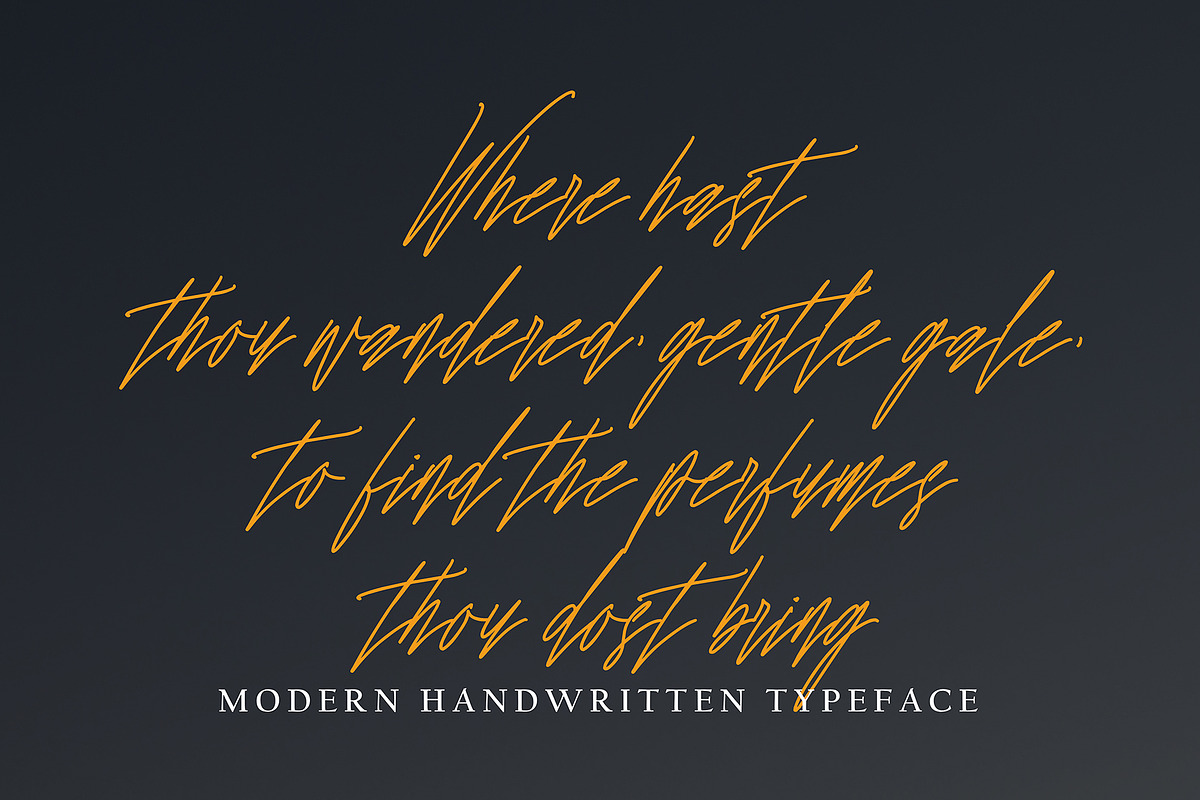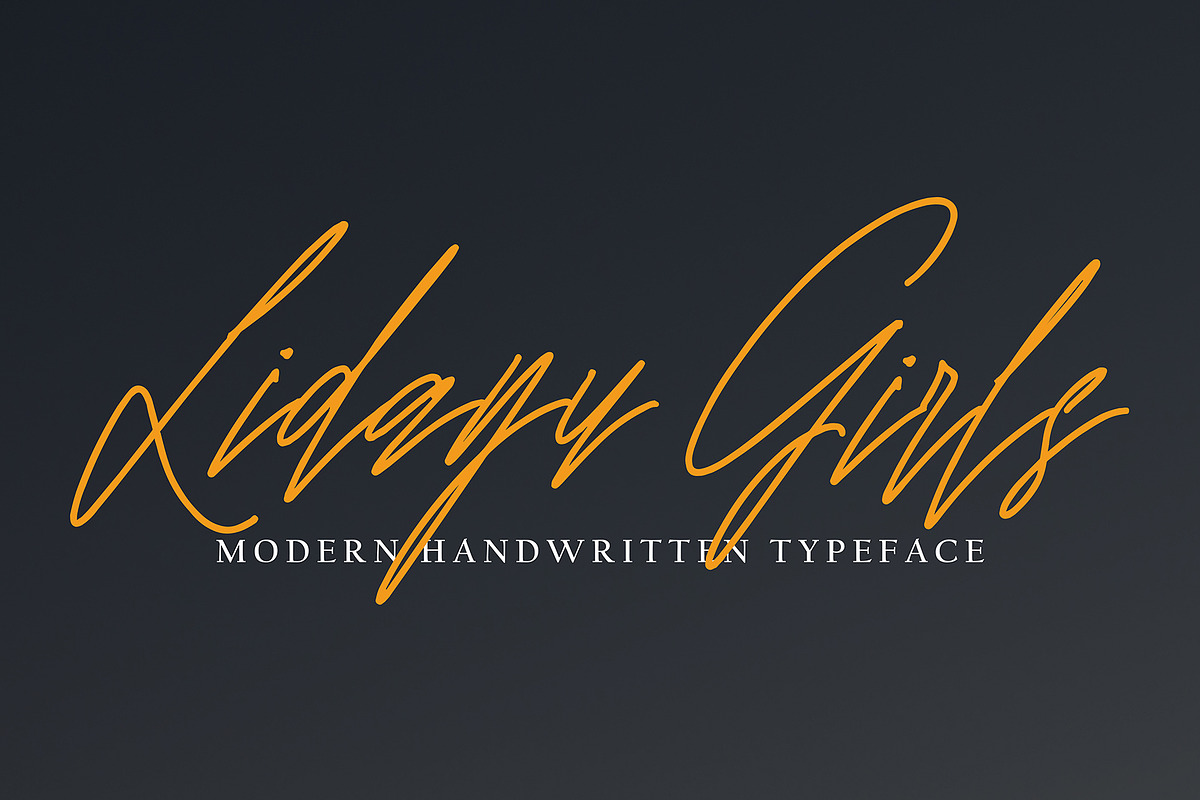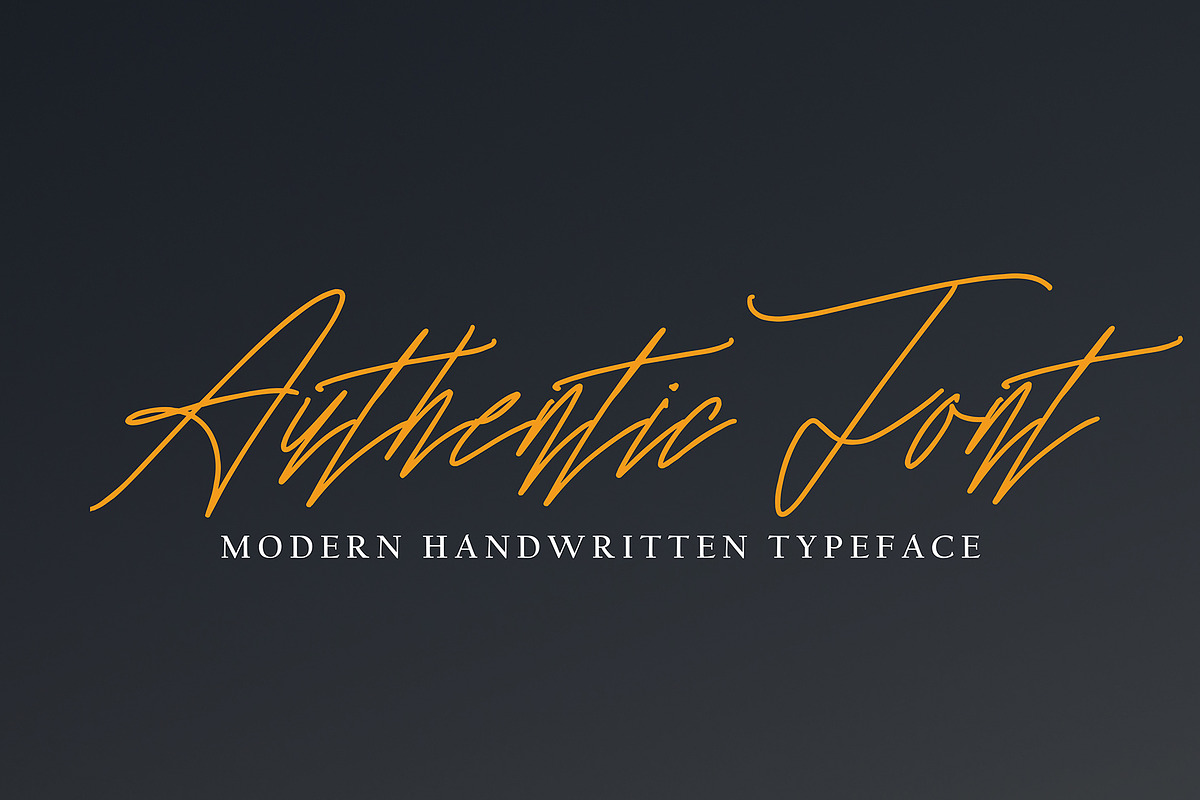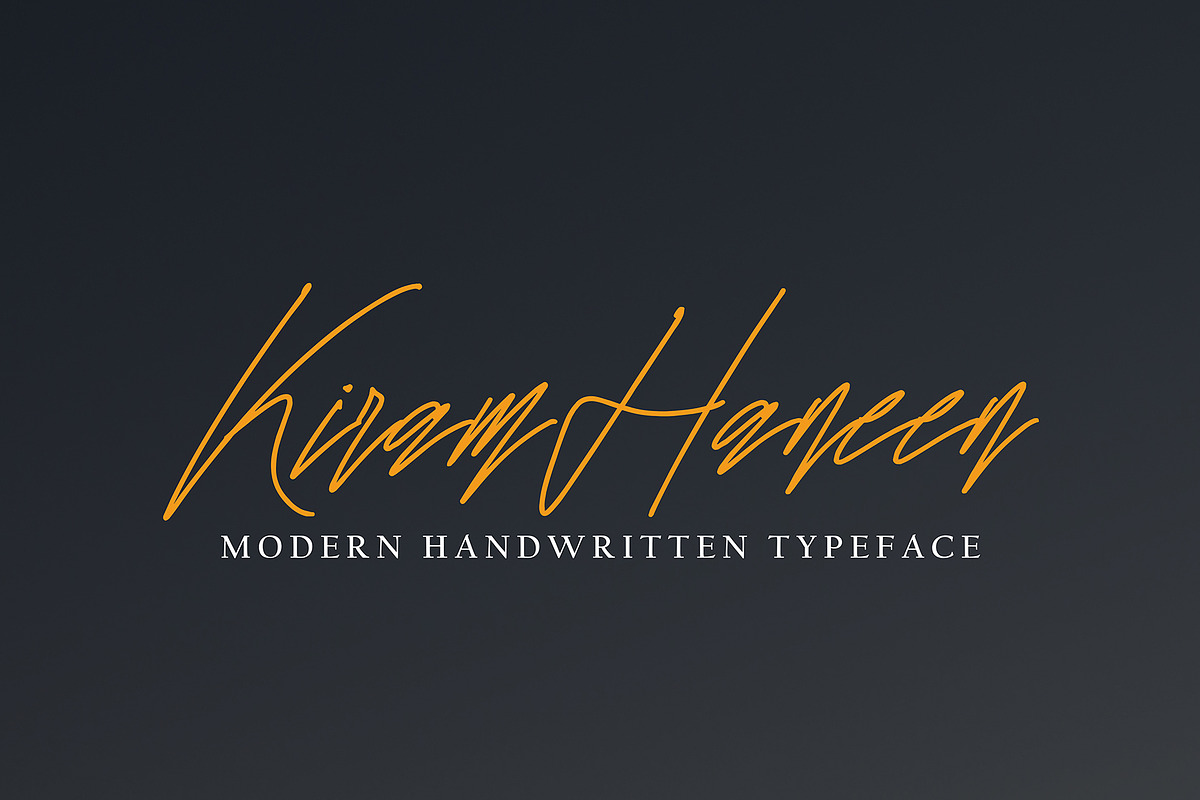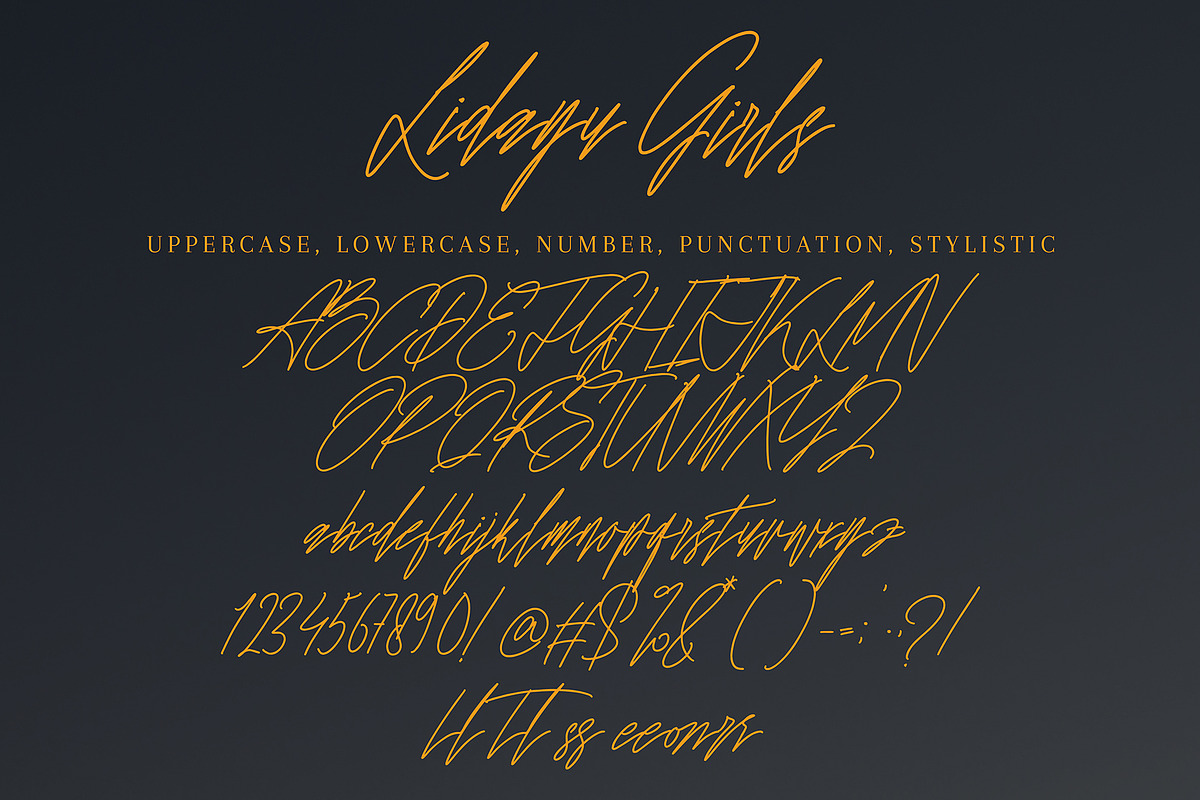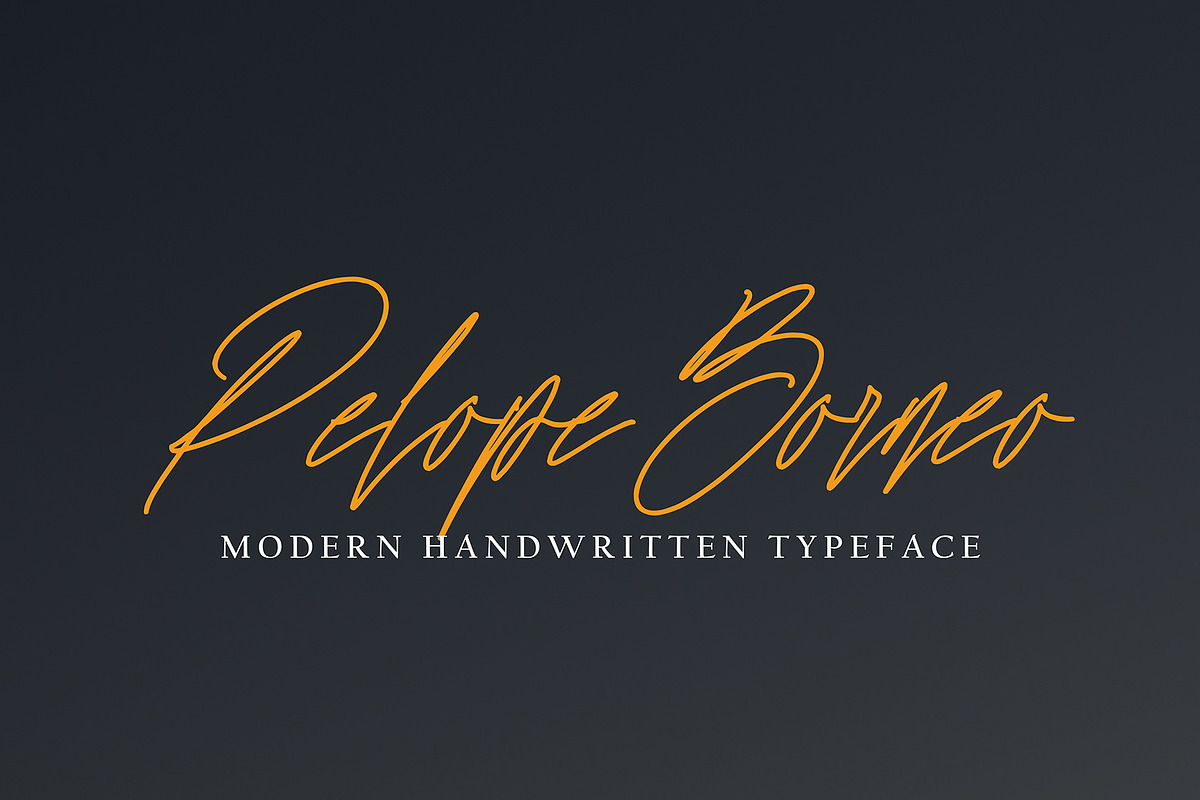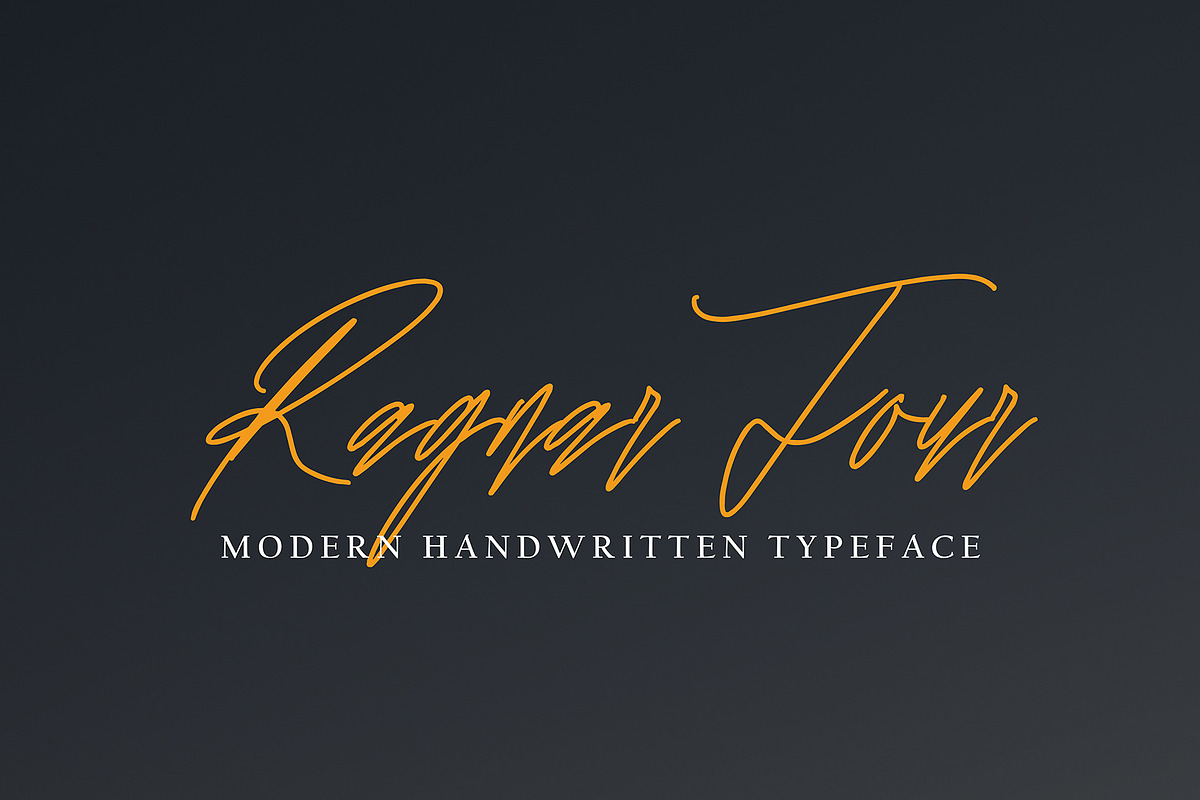
Lidayu Girl
Lidayu Girl with new style, this font will perfect for many different project ex: quotes, logo, blog header, poster, banding, letter, invitation, stationery, etc...